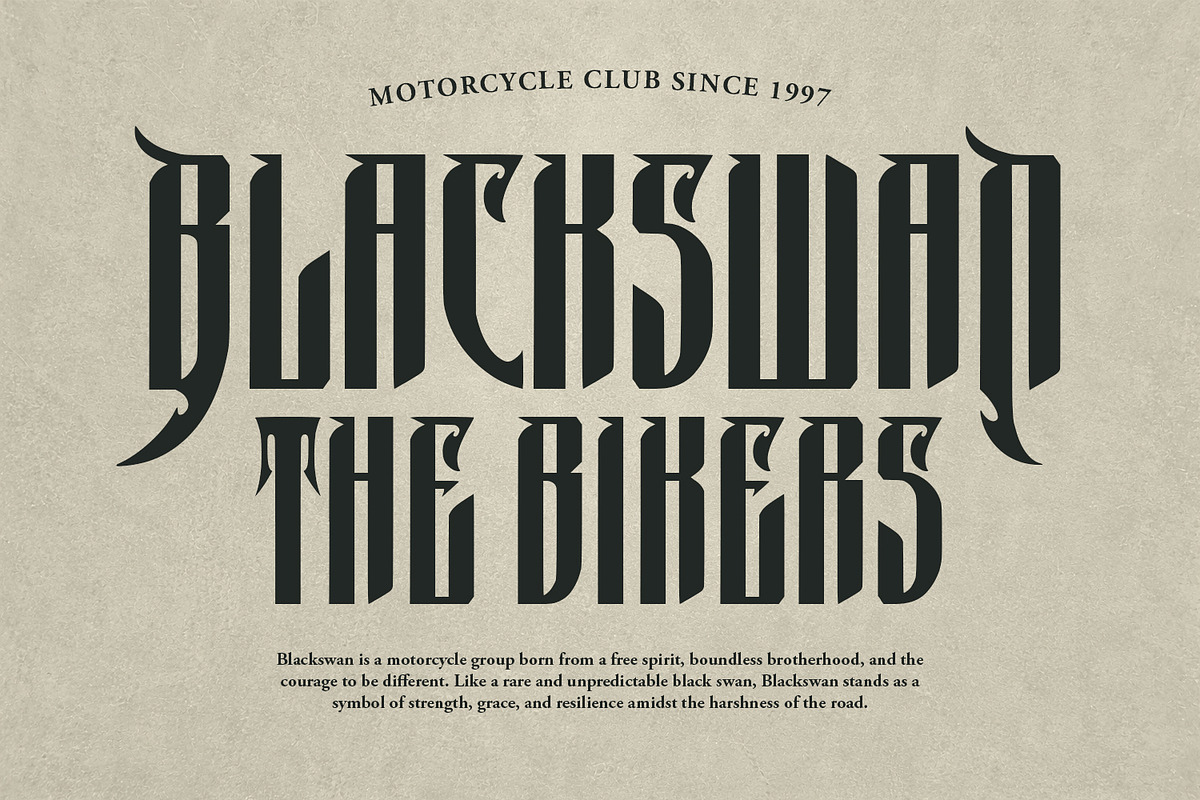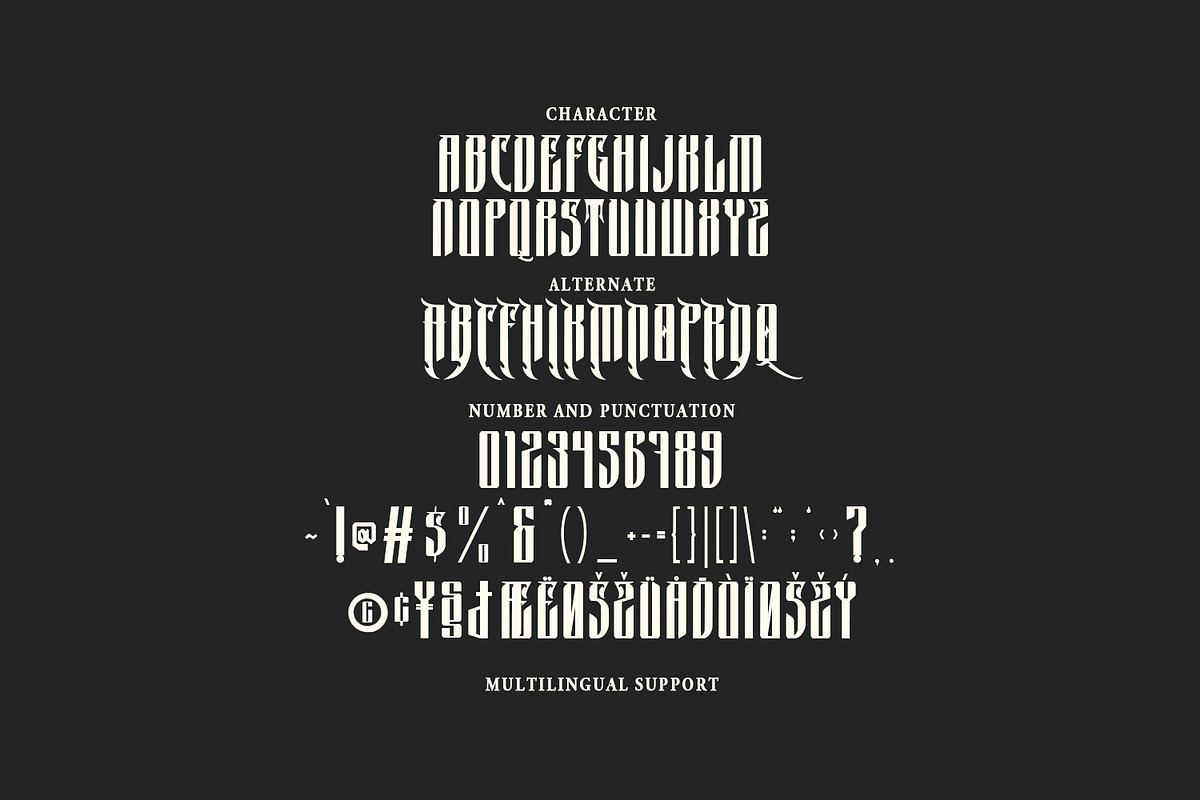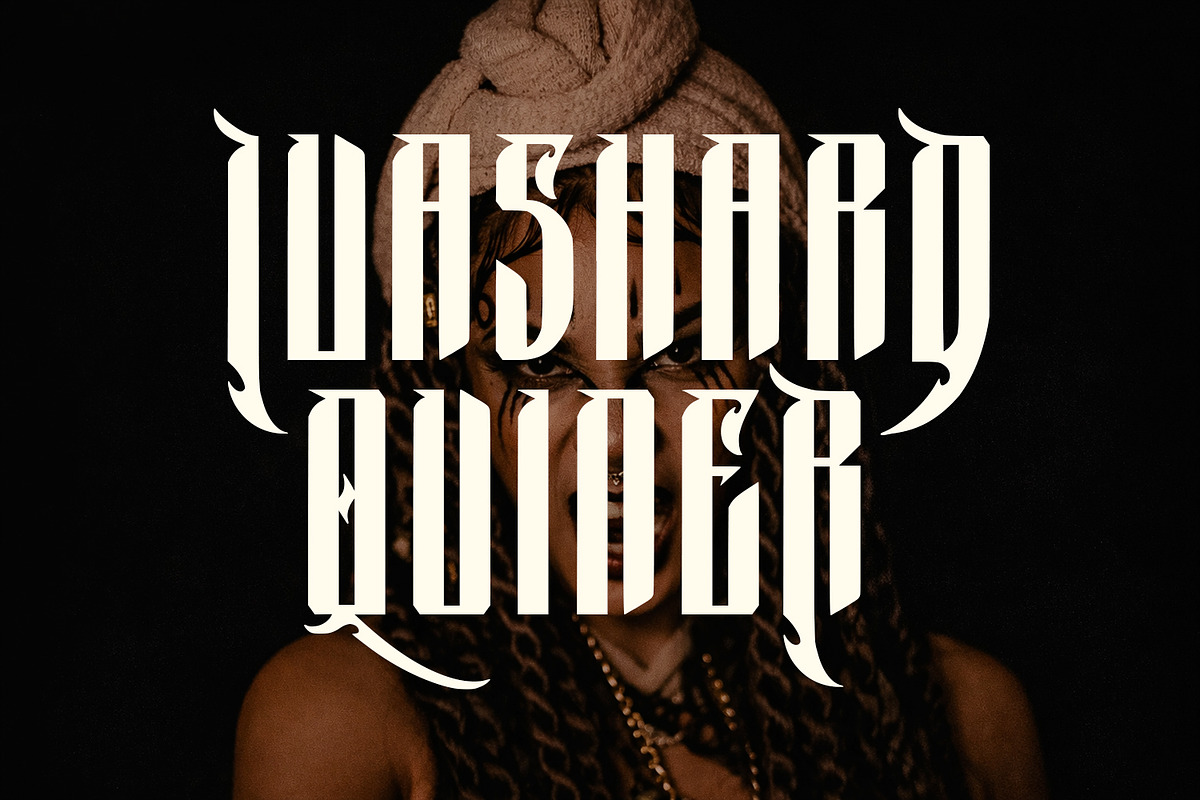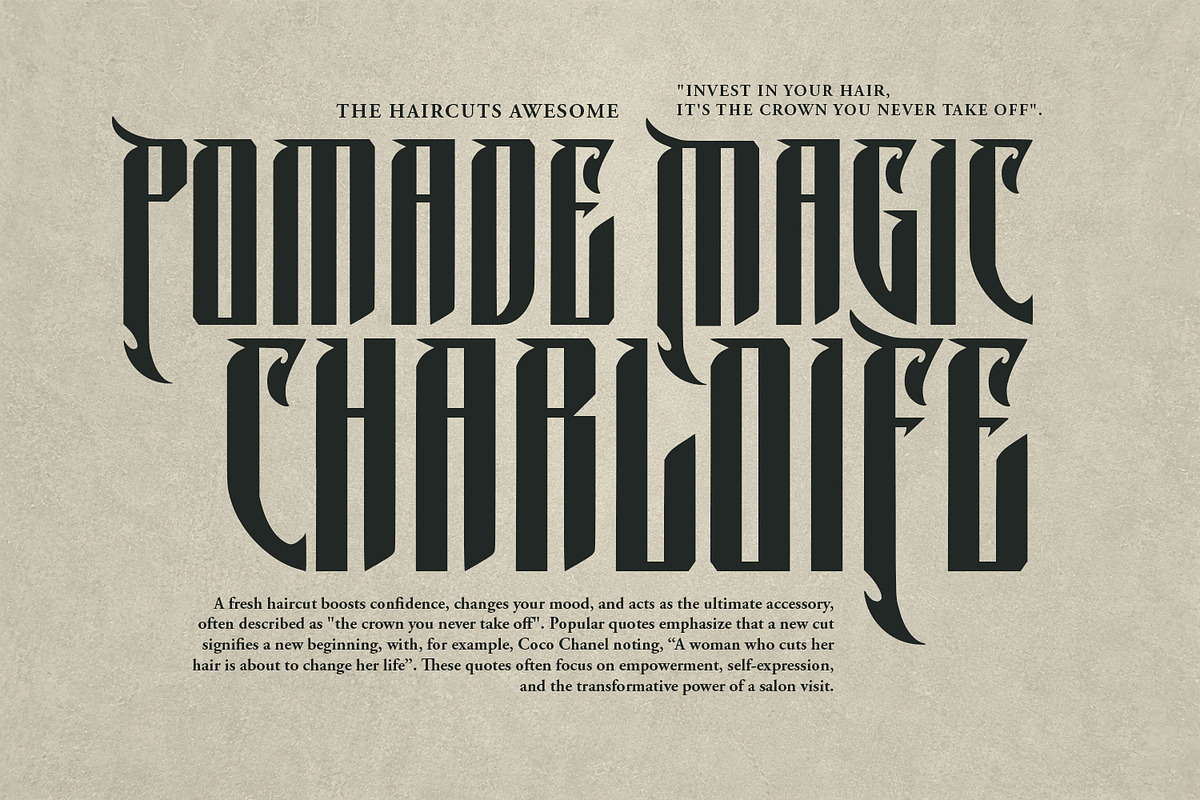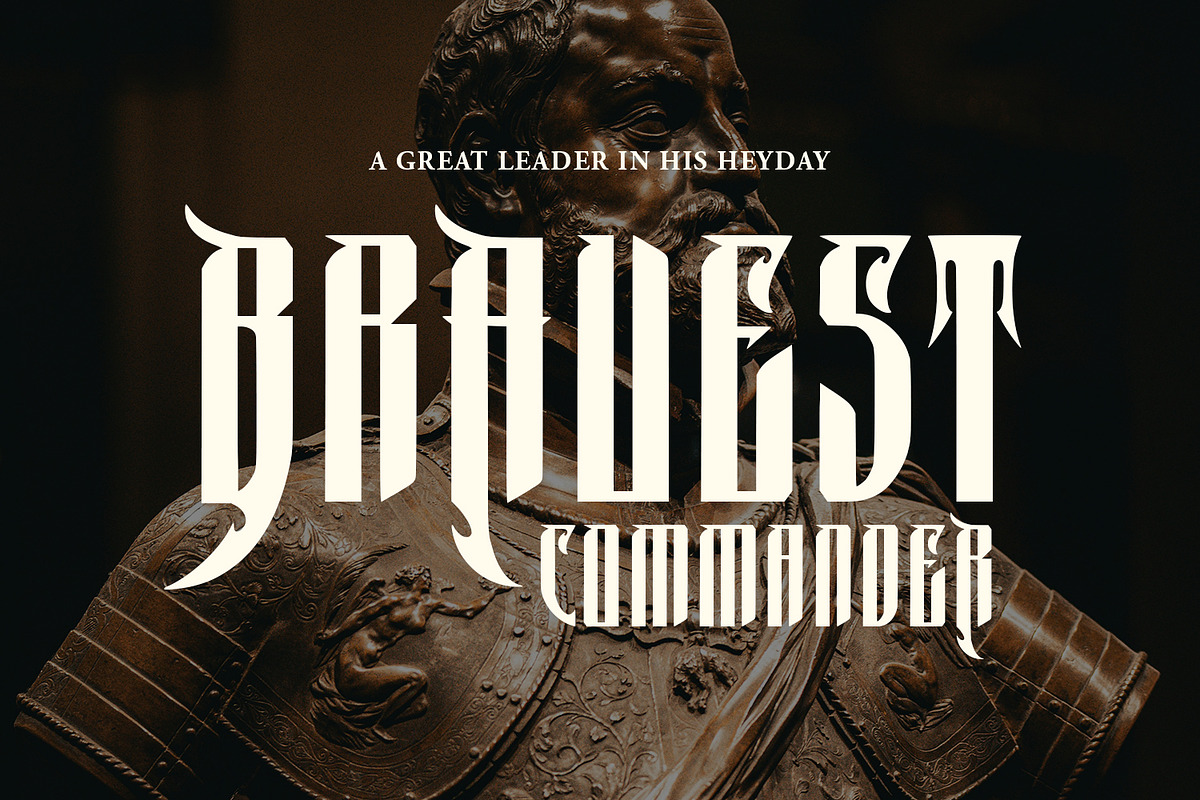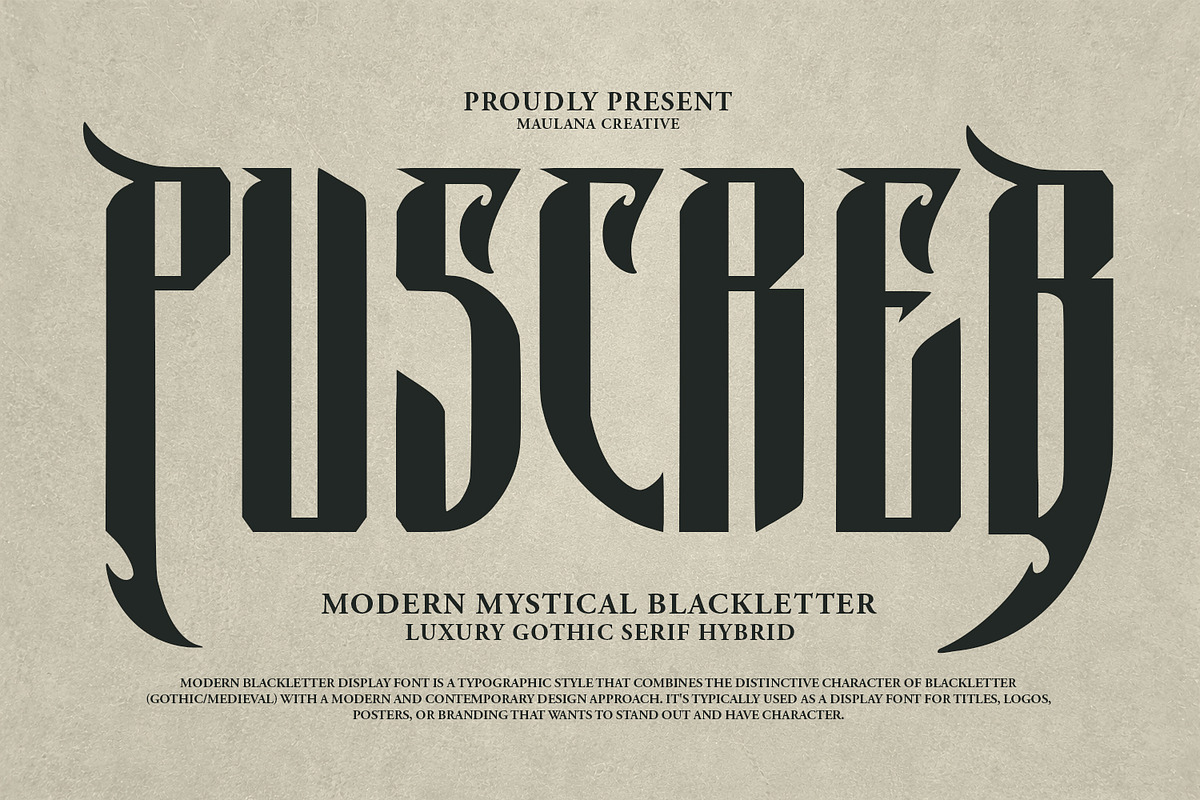
Puscreb Modern Mystical Blackletter
Puscreb is a sophisticated display font designed by Maulana Creative that masterfully blends the heritage of traditional Blackletter with the sleek refinement of a modern luxury serif. It is crafted for designers looking to balance "mystical" or "gothic" vibes with contemporary, high-end aesthetics.
Key Design Features
- Hybrid Anatomy: The font occupies a unique space between Gothic Medieval and Modern Serif. It retains the verticality and sharp angles of blackletter while incorporating the clean lines and legibility of luxury typefaces.
- Imposing Presence: Characterized by its condensed, tall structure, Puscreb commands attention. The letters feature sharp, thorn-like terminals and aggressive yet elegant ascenders/descenders.
- Mystical Aesthetics: As its subtitle "Modern Mystical Blackletter" suggests, the font carries an atmospheric weight perfect for projects involving themes of history, mystery, or edgy luxury.
- Stylistic Alternates: One of its strongest features is the set of dramatic alternates. These include extended swashes and sharper "hooked" tails that allow for custom, logo-like compositions within a single typeface.
- Full Character Set: Includes a complete uppercase alphabet.
- Stylistic Flourishes: A dedicated set of alternate characters for creative customization.
- Full Numeric & Punctuation Support: Includes all standard symbols and numbers.
- Multilingual Support: Ready for global use with a wide range of accented characters and special symbols.